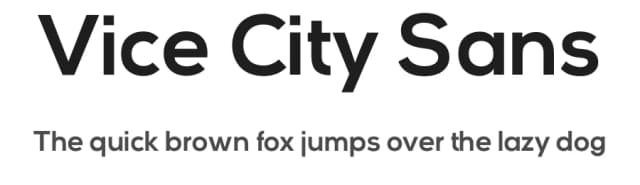
About GT Vice City Sans Font
GT Vice City Sans is a sans-serif font designed by GigaType. It includes 611 glyphs, a black weight, OTF (CFF) format, and 306 languages. GT Vice City Sans is free to download; check the license details on this page before commercial use. Sans-serif fonts like GT Vice City Sans work best for clean body text, user interfaces, branding, and modern layouts.
- Heavy, Clean, Modern, Basic
| Designer | GigaType |
GT Vice City Sans ships with 2 OpenType features you can switch on in apps that support them (Illustrator, InDesign, Affinity, Figma, CSS font-feature-settings).
GT Vice City Sans Font is a versatile sans-serif font that works for both headings and body text. Pair it with a contrasting serif or slab serif font to add visual interest and a clear distinction between titles and body copy.
GT Vice City Sans Font
by GigaType
GT Vice City Sans Font is a sans serif typeface by GigaType, ideal for logos, invitations, branding, and creative projects.